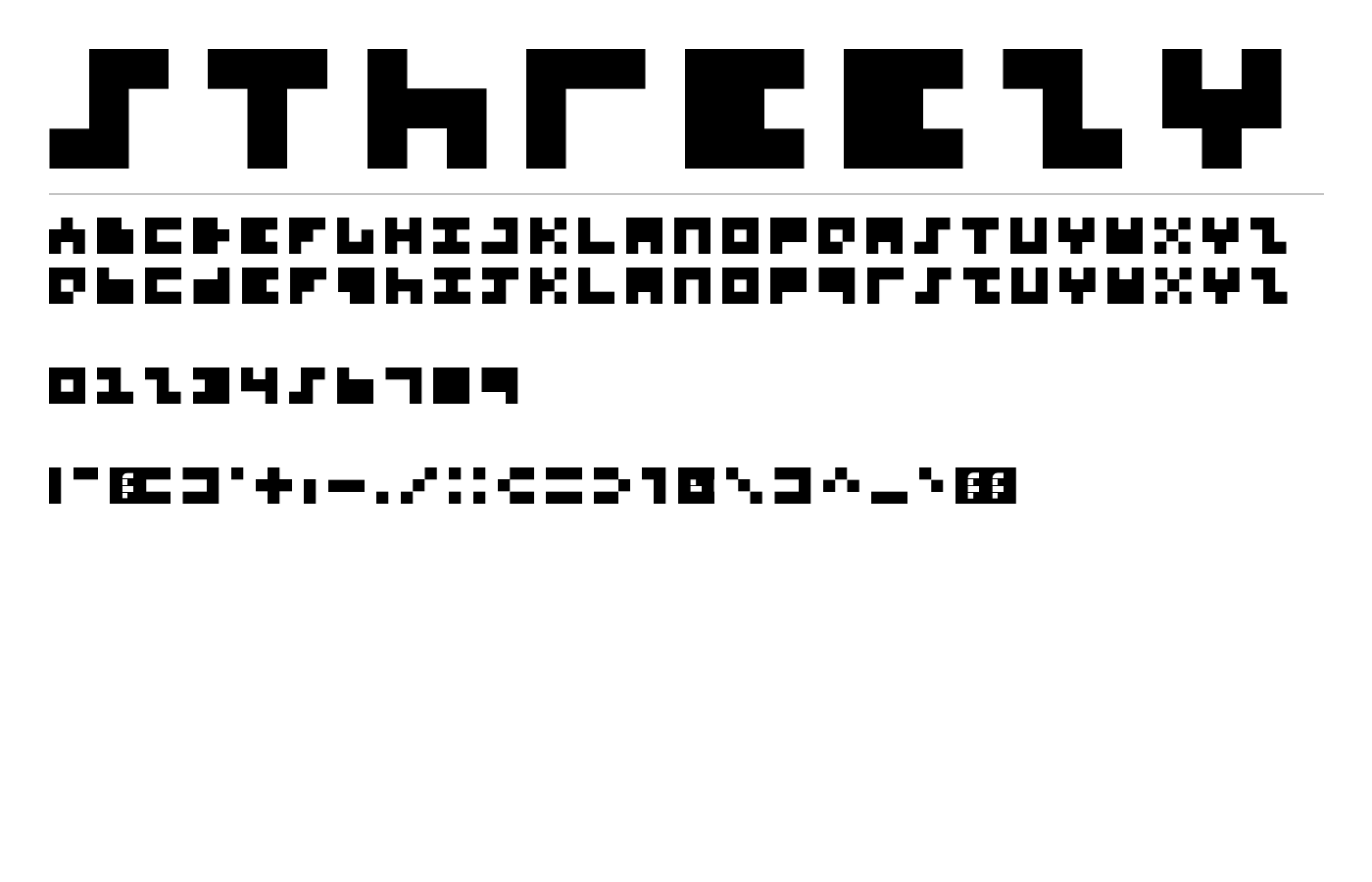
5Threezy is a bold, blocky pixel-style sans serif font with a distinctly geometric and retro digital vibe. Its uniform stroke weight and square shapes give it a strong, tech-inspired personality perfect for video game graphics, digital displays, or modern tech branding. This font excels in headline use where a striking, pixelated look can create a playful yet commanding presence.
5Threezy Font
| Font family | 5Threezy Font |
| Release date | 2013-05-18 |
| Designer | Noah - 10 year old typomaniac |